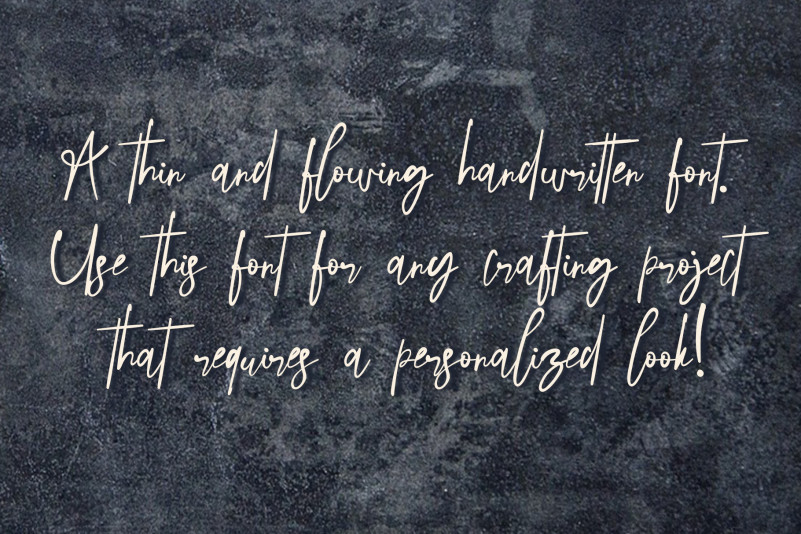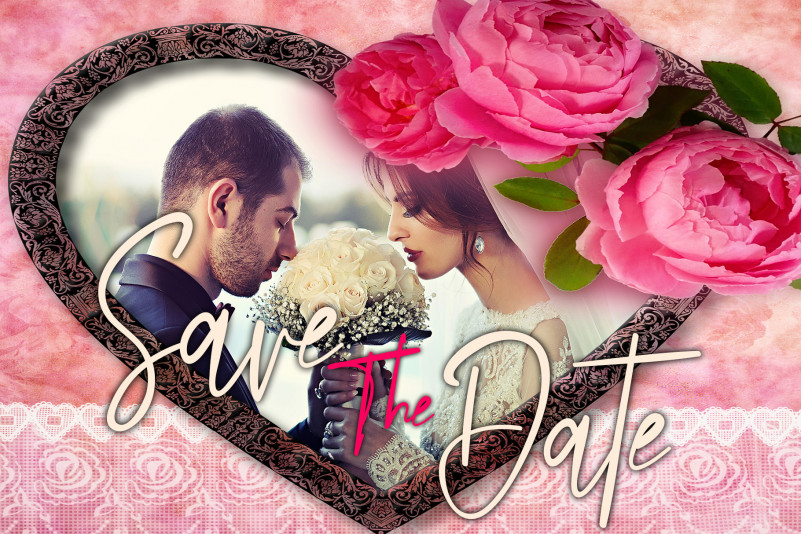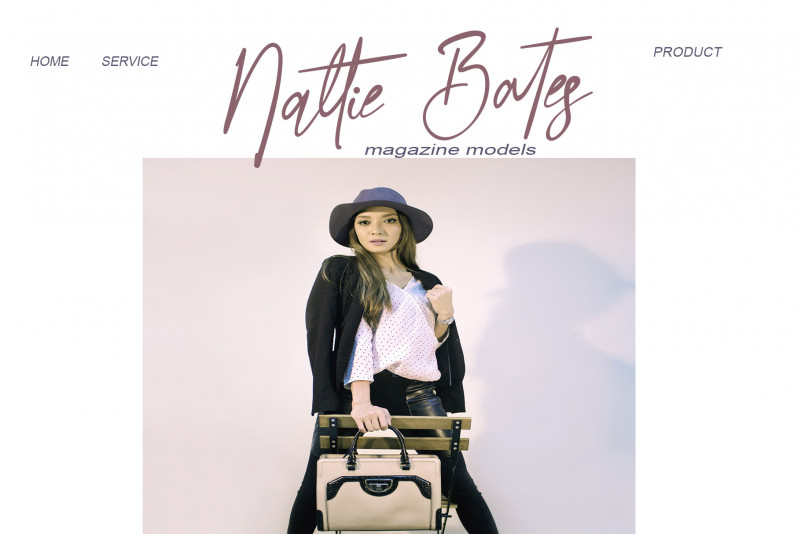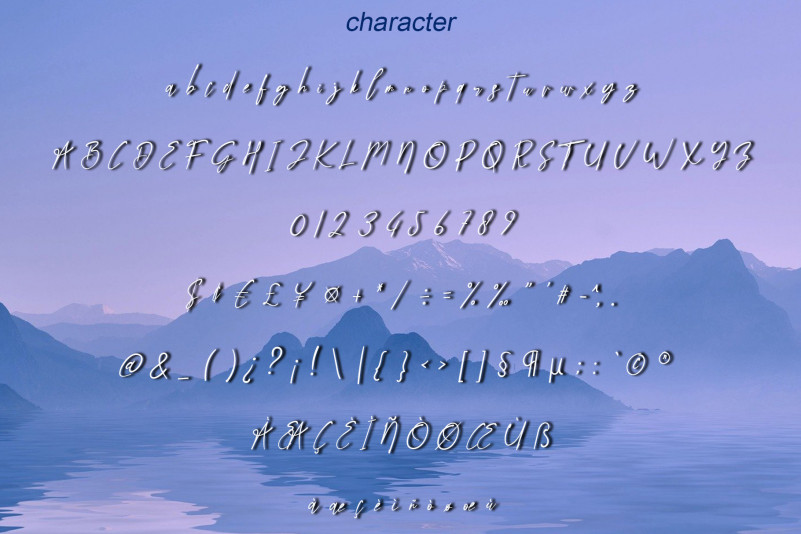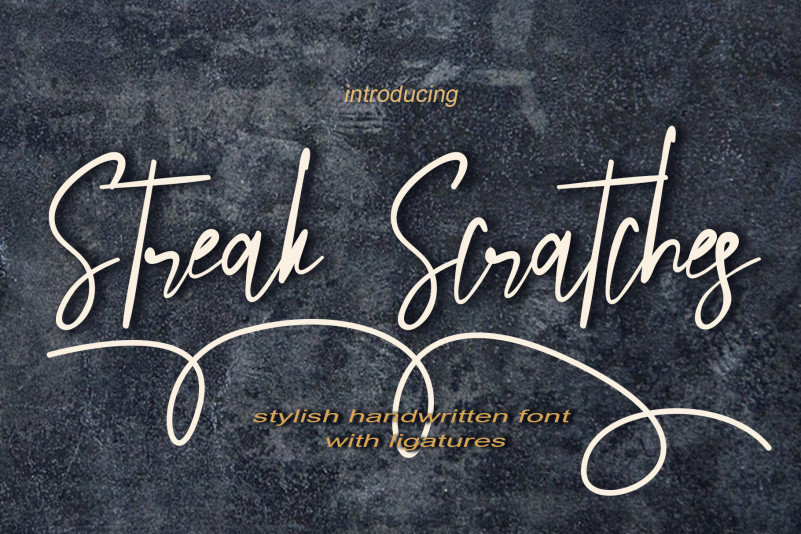
Streak Scratches Font
Streak Scratches Script Font
This is a charming handwritten font. Fall in love with its authentic feel and use it to create gorgeous wedding invitations, beautiful stationary art, eye-catching social media posts, and cute greeting cards. Streak Scratches is PUA encoded which means you can access all of the glyphs and swashes with ease!